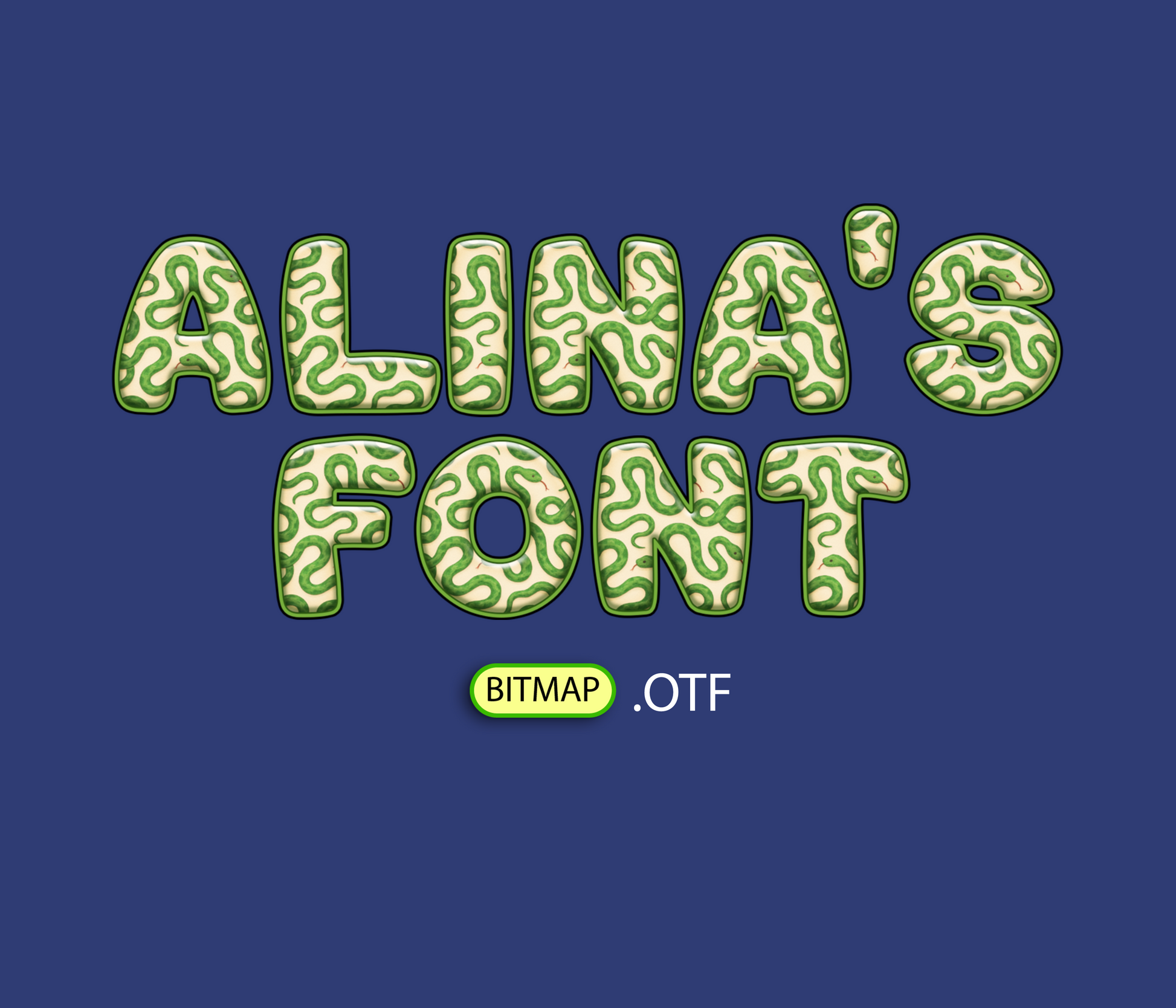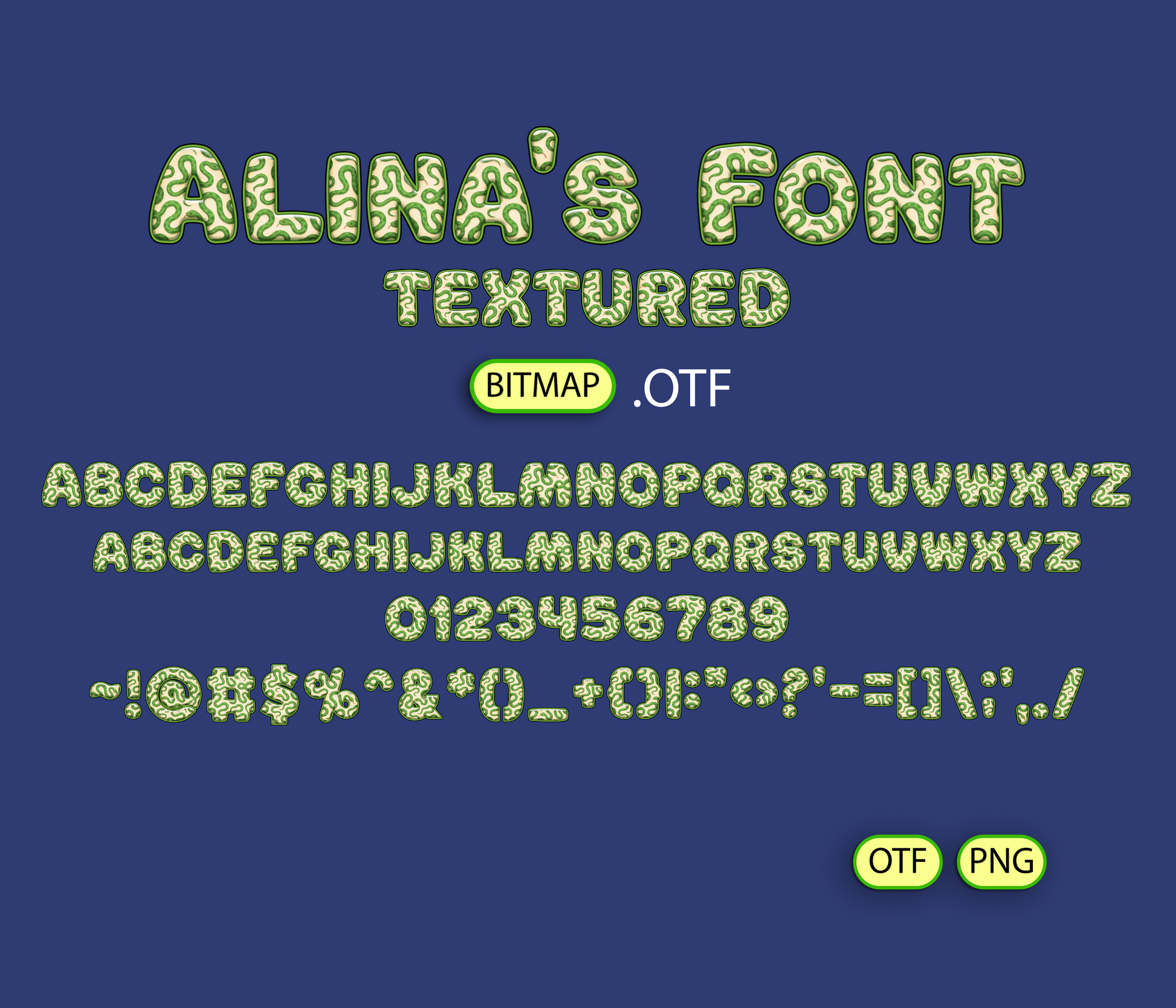
Snake Pattern Font
Snake Typeface Textured
Slither into the mesmerizing world of nature's most mysterious predators with our Snake Typeface, capturing the essence of sinuous curves, intricate scale patterns, and hypnotic movement. Perfect for reptile enthusiasts, wildlife organizations, adventure brands, and creative professionals, this font brings the captivating, serpentine elegance of these fascinating creatures to your projects. Create striking signage, nature-themed products, or digital content with the fluid, powerful grace of desert vipers and tropical constrictors.
Our Snake Typeface features flowing, serpentine curves, detailed scale textures, and undulating characters reflecting the sleek and powerful aesthetic of these ancient reptiles. Ideal for:
- Nature Business: Create compelling logos, packaging, and promotional materials for reptile exhibits, wildlife reserves, and adventure tourism companies
- Children's Design: Perfect for educational books, reptile-themed party decorations, and learning materials that celebrate biodiversity and wildlife conservation
- Digital Media: Enhance websites, blogs, and social media with dynamic headers and graphics that express mystery, power, and natural adaptability
- Educational Content: Add authentic character to science materials, herpetology guides, and promotional materials for wildlife protection and habitat preservation projects
- Personal Projects: Bring exotic charm to greeting cards, craft projects, and home decor inspired by the aesthetics of tropical rainforests and desert landscapes